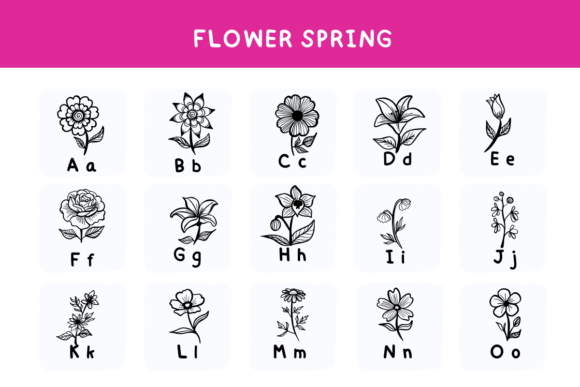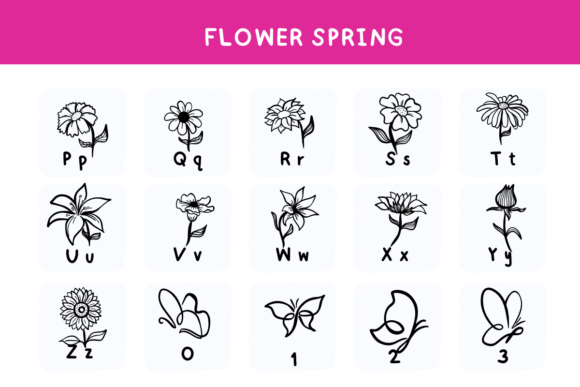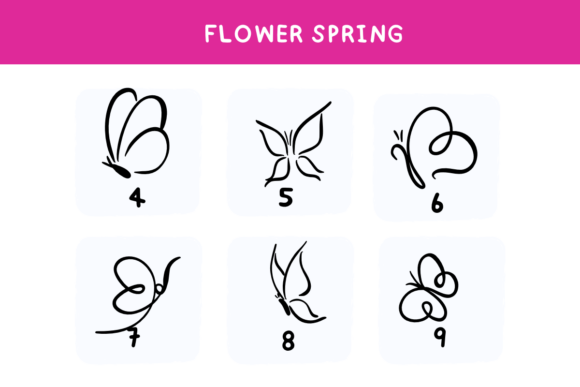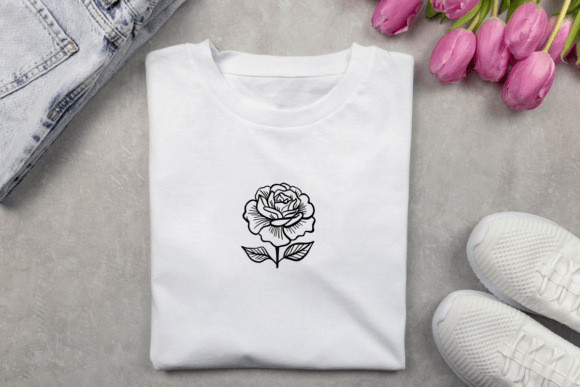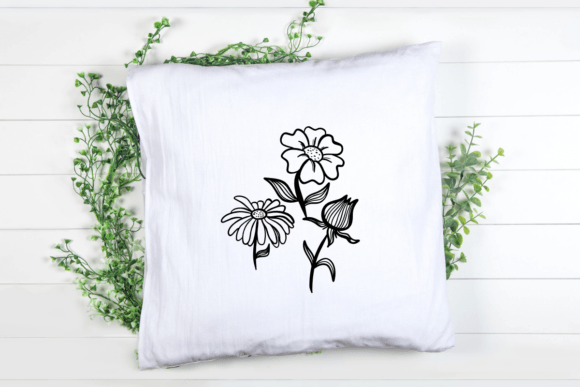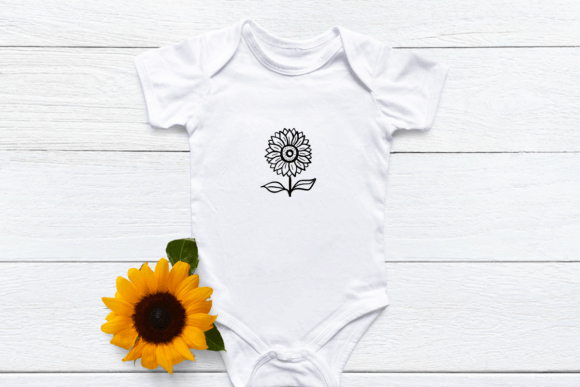
Where Creativity Blooms: The Flower Spring Font
Have you ever stared at a blank canvas, searching for that perfect spark to ignite your imagination? The thrill of bringing a new idea to life is exhilarating, and it’s moments like these that make us appreciate the tools that help us express ourselves. For designers, finding the right font can be the missing piece that elevates a project from ordinary to extraordinary.
Enter the enchanting Flower Spring Font, a dingbats font designed with a unique sketch style that’s perfect for breathing life into your imaginative endeavors. Whether you’re crafting wedding invitations, working on DIY projects, or creating logos, Flower Spring Font adds an unparalleled charm to any design. Its mesmerizing design sparks joy and creativity, making it a valuable asset for designers looking to inspire and flourish their imagination.
With Flower Spring Font, the possibilities are endless, and the results are truly breathtaking. Let’s dive into the world of this captivating font and explore its endless creative potential.
Flower Spring Font Key Features
- Unique Characteristics: The Flower Spring Font features a unique, hand-drawn design with subtle floral patterns and elegant lines, adding a touch of sophistication and whimsy to any project.
- Kerning and Ligatures: The font includes advanced kerning and ligature pairs, ensuring seamless text flow and a professional appearance.
Designer Review: Flower Spring Font
Overall, I was pleasantly surprised by the charm of the Flower Spring Font. Here are some things that caught my eye: ✨
- The unique, whimsical style of the font is sure to add a touch of personality to any design project.
- The subtle floral details throughout the font make it feel fresh and spring-like, perfect for branding projects related to gardening or springtime.
- The font’s cursive feel makes it suitable for use in invitations, wedding designs, and other applications where a touch of elegance is desired.
- The font may be too ornate for use in body text, as it can be difficult to read in larger quantities.
- The font’s unique style may not be suitable for use in more formal or professional designs, as it may come across as too playful.
Overall, I would recommend the Flower Spring Font for designers looking to add a touch of whimsy and personality to their designs. While it may have some limitations, the font’s unique style and charm make it a great choice for the right projects.
The Flower Spring Font is ideal for creating whimsical and playful designs. Use it for:
Children’s book illustrations
Party and event decorations
Remember to pair the font with complementary colors and graphics to enhance its visual appeal.